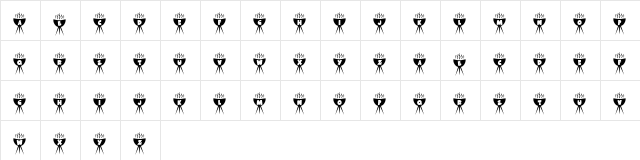
KR BBQ Regular Font Preview
KR BBQ Regular
KR BBQ Regular Font Details
Design Context for KR BBQ Typeface
KR BBQ is a composed and adaptable typeface that performs quietly and consistently across a wide range of design contexts.